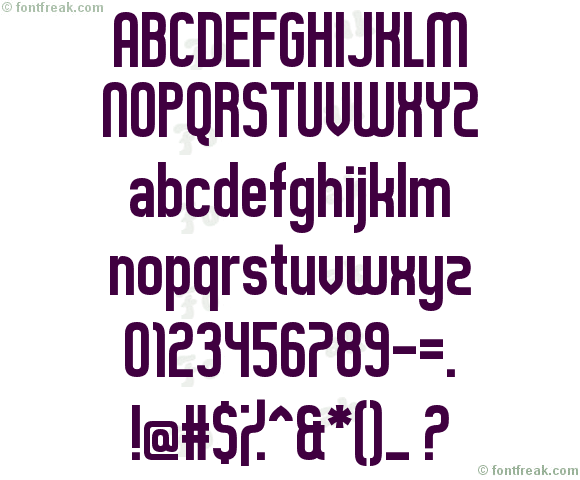
Guilty Treasure
Guilty Treasure — Character Map
About Guilty Treasure
Guilty Treasure is a striking display typeface designed by Andrew McCluskey, available as freeware, making it an excellent choice for various creative projects. This font belongs to the display category, characterized by its unique and eye-catching design that commands attention. The font features bold strokes with a moderate contrast, giving it a strong presence while maintaining readability. The letterforms are well-spaced, ensuring clarity and legibility even at larger sizes, which is essential for any visual communication.
Guilty Treasure is particularly suited for a range of applications. Its distinctive style makes it ideal for wedding invitations, where a touch of elegance is desired. It can also enhance the visual appeal of movie posters, providing a dramatic flair that captures the essence of the film. Additionally, this font works beautifully for restaurant menus, creating an inviting atmosphere that draws customers in. Content creators will find it a valuable asset for social media graphics, adding personality and style to promotional posts.
The target audience for Guilty Treasure includes graphic designers, small business owners, and content creators looking to elevate their branding or projects with a unique typeface. Its versatility allows it to be adapted for various themes and purposes, making it a go-to choice for many.
What sets the Guilty Treasure font apart is its ability to blend modernity with a touch of classic flair, making it suitable for both contemporary and traditional designs. The combination of its bold presence and elegant form ensures that it leaves a lasting impression in any context. For those interested in enhancing their design toolkit, the Guilty Treasure font free download is a fantastic opportunity to incorporate this remarkable typeface into their work.